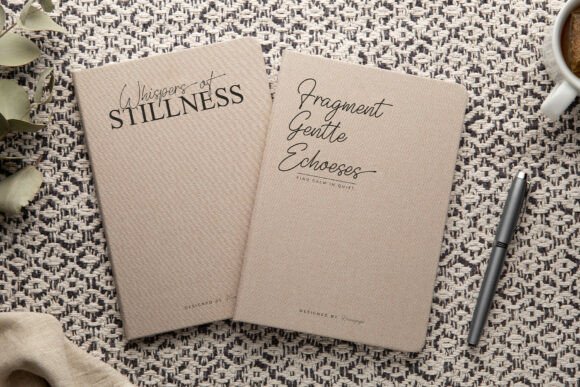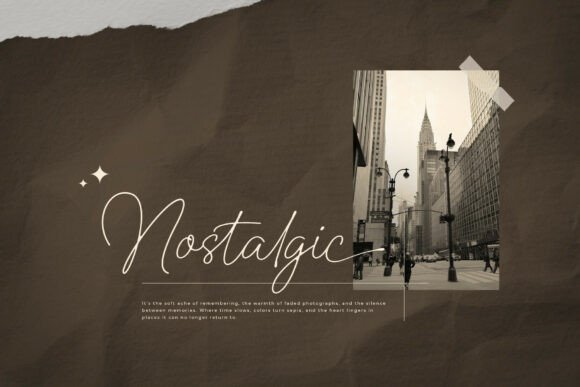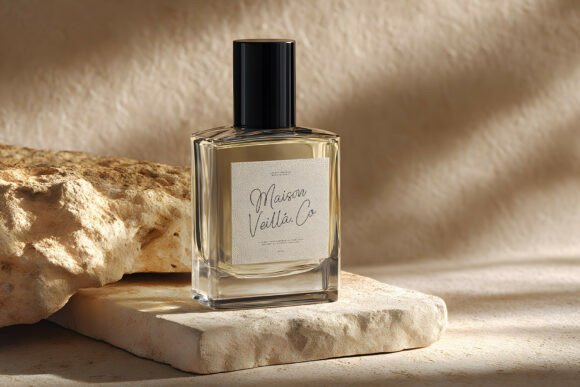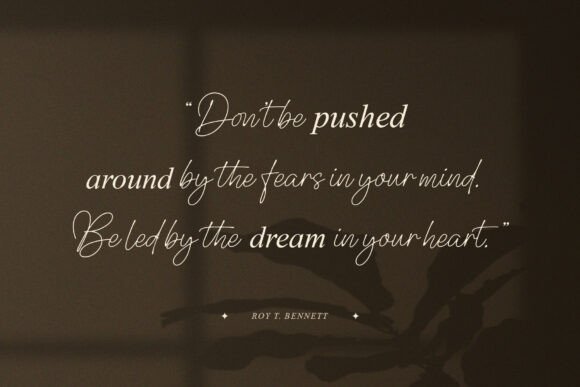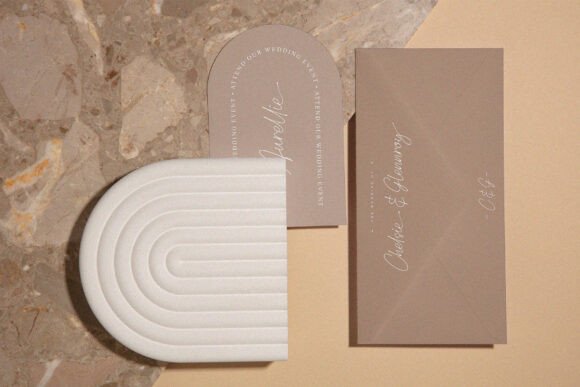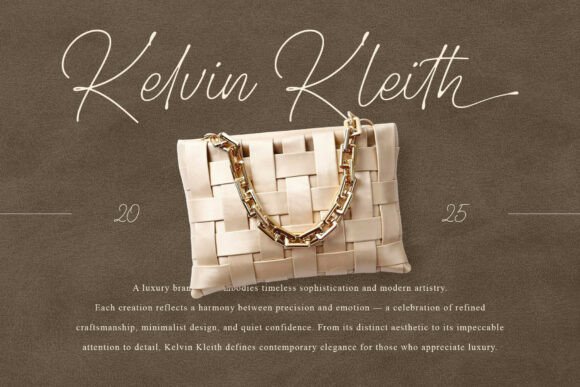
Introduction to Hollywood Secret Font
Remember that moment when you stumbled upon the perfect font to elevate your creative project? The one that made your design stand out, telling a story without a single word? For many designers, that moment is often elusive, but for those who’ve discovered the Hollywood Secret Font, the magic is real.
This enchanting handwritten script font is a treasure trove for designers seeking to add a touch of sophistication and elegance to their work. With its organic flow and authentic handwriting style, the Hollywood Secret Font is perfect for branding, packaging, photography, logos, stationery, and creative quotes. Whether you’re working on a luxury fashion project or a high-end editorial title, this font is sure to add an air of exclusivity to your design.
Hollywood Secret Font
- High-quality design resource with a unique, elegant style perfect for creative projects.
- Unique characteristics include swashes, ligatures, and contextual alternates, adding a touch of sophistication to any design.
- Perfect for use in logos, typography-based art, and other creative projects where a high-quality, elegant font is required.
Honest Review: Hollywood Secret Font
As a designer, I’m always on the lookout for high-quality fonts that can elevate my creative projects. I recently had the chance to try out the Hollywood Secret Font, and I’m excited to share my honest review.
- The font has a unique and stylish design that’s perfect for modern creative projects.
- The font may not be suitable for projects that require a more traditional or formal look.
- The font’s bold and playful design may be overwhelming for some projects.
Overall, I’m impressed with the Hollywood Secret Font. It’s a great addition to any designer’s toolkit, especially for creative projects that require a modern and stylish touch. While it may have some limitations, I think it’s a valuable design resource that’s worth considering.
Hollywood Secret Font
The Hollywood Secret Font is a high-quality design resource that can elevate your creative project to the next level. With its unique style and transparent background, this font is perfect for designers looking for a free download to enhance their work.
Tips for Getting the Most Out of the Hollywood Secret Font
To get the most out of the Hollywood Secret Font, use it sparingly to add a touch of elegance to your design. You can also experiment with different font sizes and colors to create a unique look.
The Hollywood Secret Font is perfect for:
Movie titles and posters
Brand logos and identity
Does the Hollywood Secret Font include a transparent background?
Yes, the Hollywood Secret Font includes a transparent background option, allowing you to easily integrate it into your designs without any unwanted background elements. This feature makes it an ideal choice for designers working with layered compositions or requiring a high degree of design flexibility.